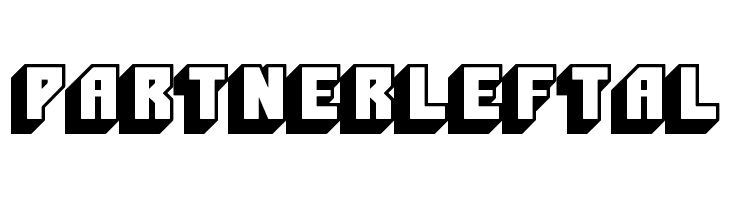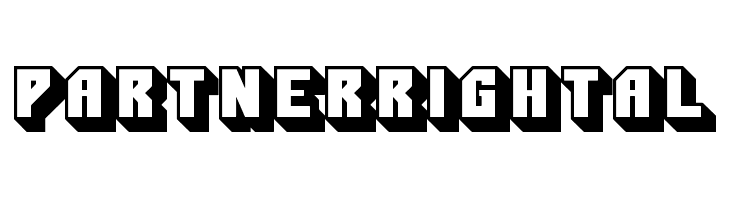
A bold, 3D block-style font with geometric shapes and strong visual impact.
A bold, three-dimensional block font with a strong shadow effect and geometric design.
A bold, three-dimensional block font with a strong shadow effect.
A bold, 3D block font with strong shadow effects for impactful designs.
A bold, 3D block-style font with strong shadow effects.
A bold, three-dimensional block font with a strong shadow effect and geometric design.